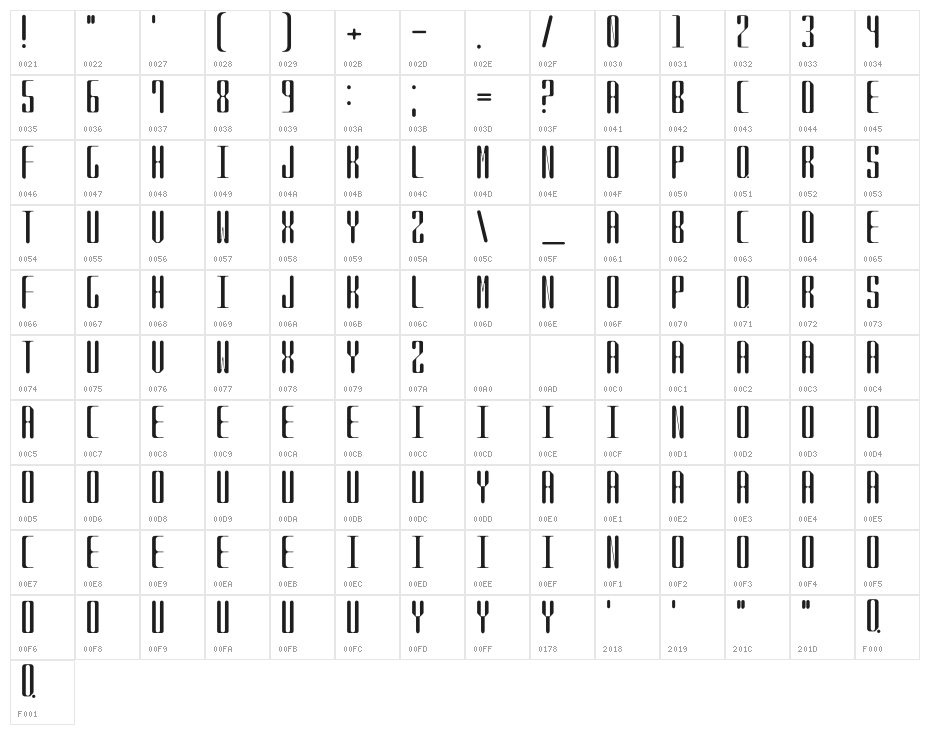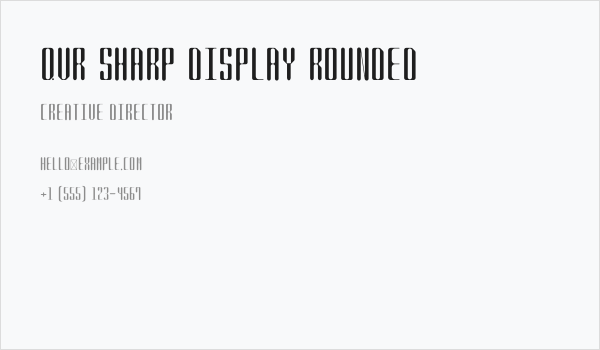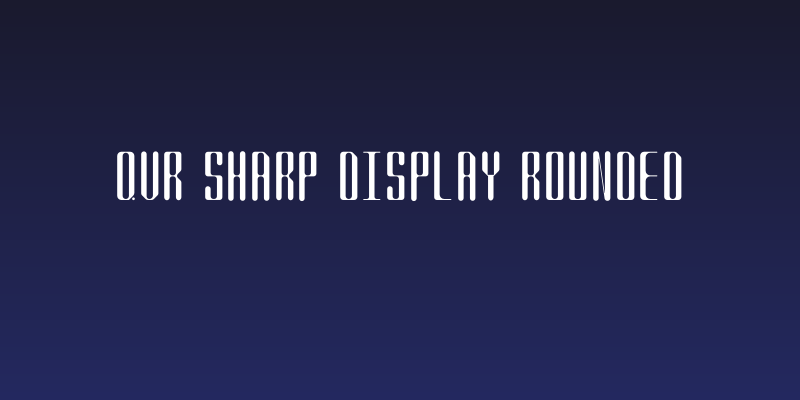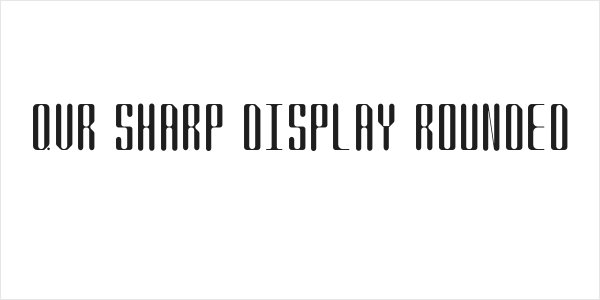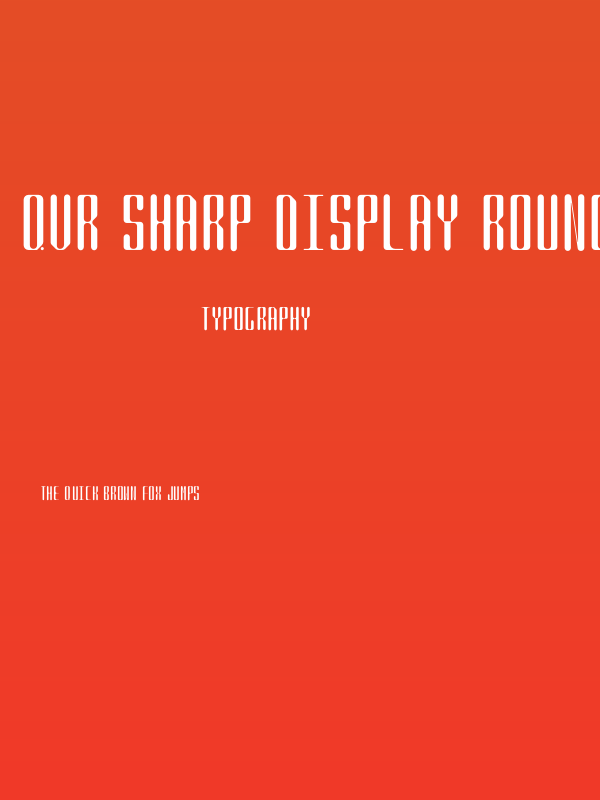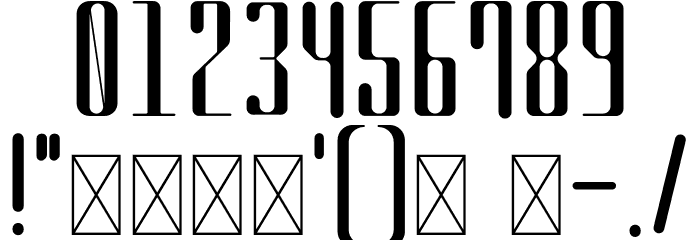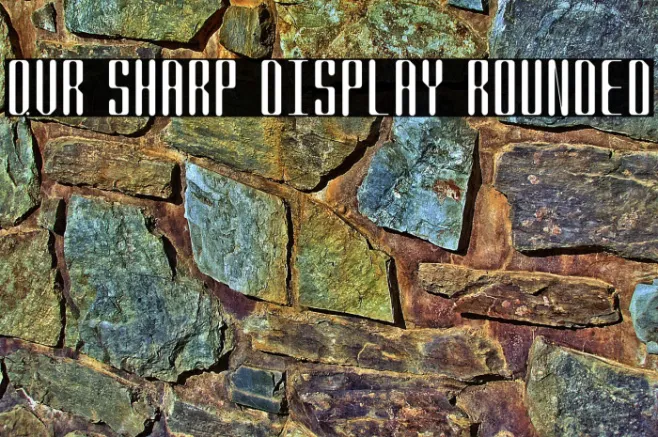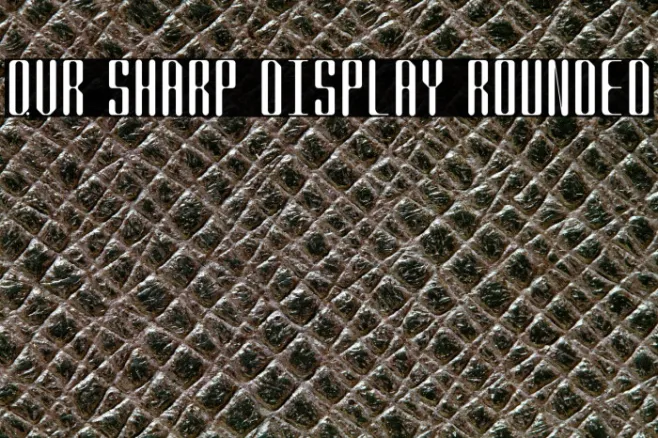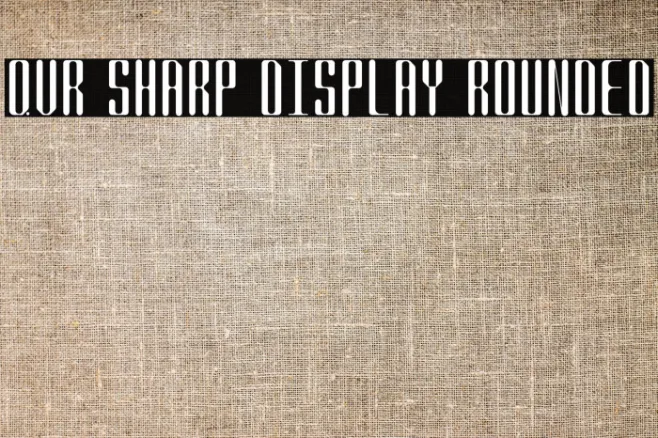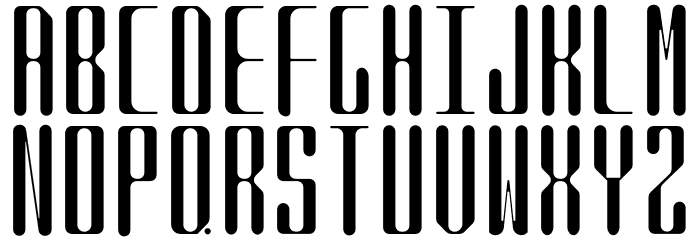
QVR Sharp Display Rounded Font
QVR Sharp Display Rounded Description
This font features a modern and sleek design with a distinct rounded and sharp appearance. The characters are elongated with a vertical emphasis, giving them a tall and narrow look. The strokes are consistent in width, providing a uniform appearance across all characters. The rounded edges soften the overall sharpness, creating a balanced aesthetic. The font includes both uppercase and lowercase letters, numerals, and a selection of special characters, making it versatile for various design needs. Its unique style is both eye-catching and legible, suitable for contemporary design projects.
| Proposed Projects | Ideal for branding, posters, headlines, and digital media where a modern and distinctive look is desired. |